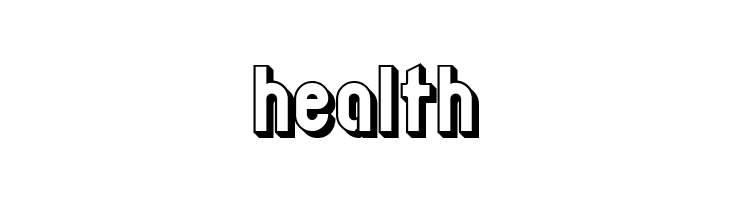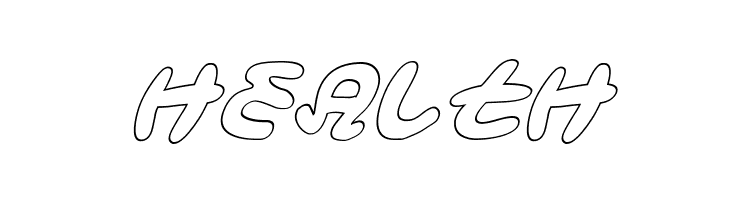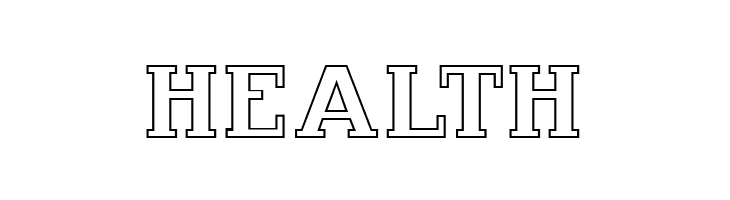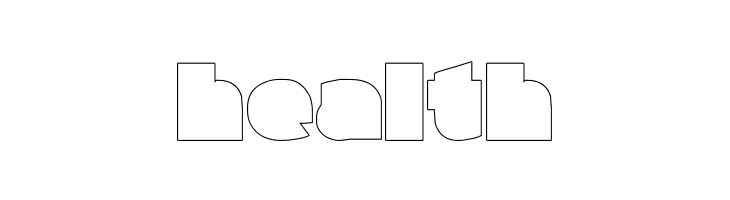
Bold, outlined, italicized font with a modern, dynamic style.
A playful, outlined font with a hand-drawn, whimsical style.
A bold, geometric outline font with a futuristic and dynamic style.
A bold, italicized outline font with a futuristic and dynamic style.
A bold, narrow font with a modern, geometric style.
A modern, outline-style font with tall, narrow characters and consistent stroke width.
A clean, modern sans-serif font with uniform stroke width and balanced character spacing.
A futuristic, geometric outlined font with sharp, angular forms.
A playful, bold outline font with a hand-drawn, whimsical style.
A playful, bold outline font with rounded characters and consistent stroke width.
A modern, geometric outline font with a futuristic design.
A modern, italic, geometric outline font with a dynamic and cohesive design.
A bold, outlined font with a playful, geometric style.
A bold, geometric outline font with a modern, impactful style.
Bold, italicized outline font with a modern and dynamic style.
A bold, geometric outline font with a modern and structured aesthetic.
A playful, bold outline font with rounded, slightly slanted characters.
An elegant outline serif font with classic design and subtle flourishes.
A playful, bubbly outline font with a retro vibe.
A whimsical and playful font with decorative, curly serifs and a hand-drawn appearance.
A playful, nautical-inspired monoline font with whimsical curves and consistent stroke width.
A playful, hand-drawn outline font with a whimsical and casual style.